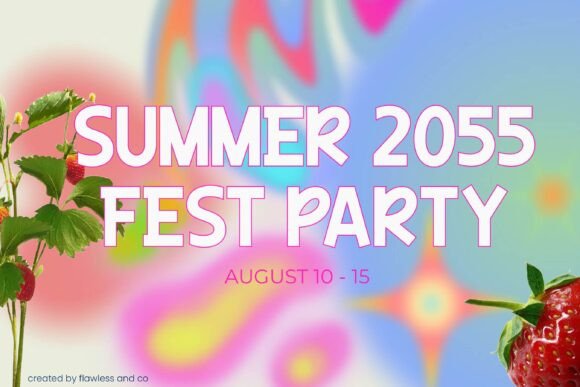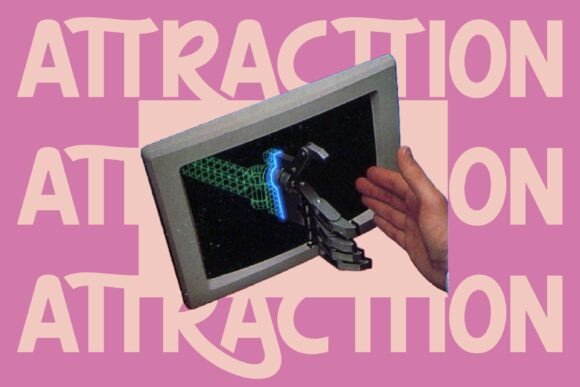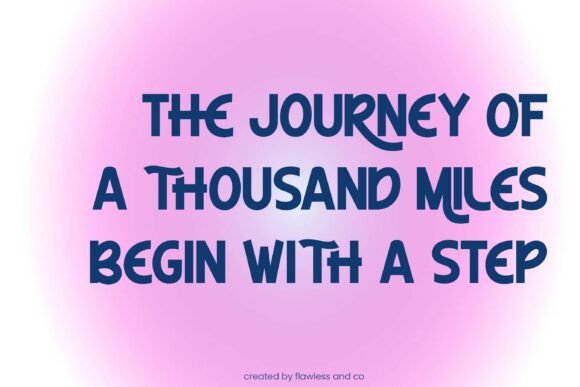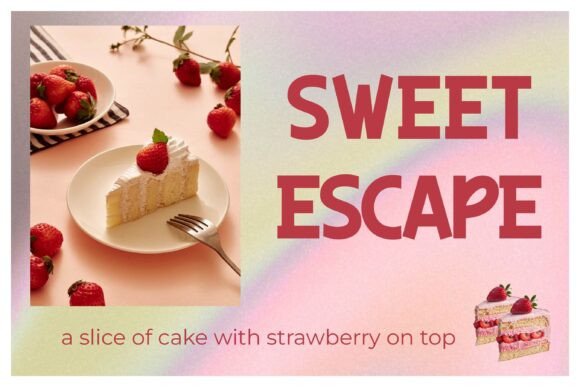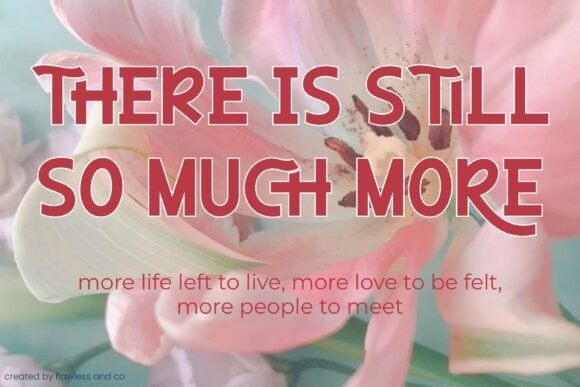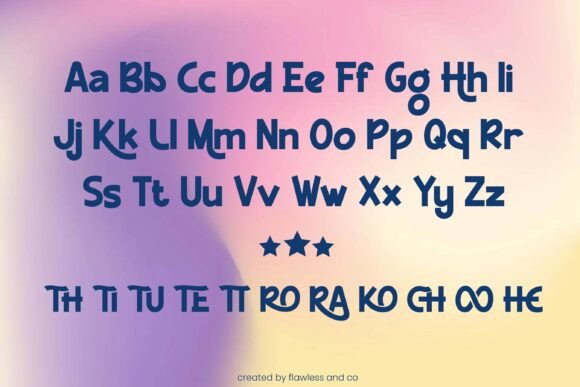
Introducing Blaperoom Font: The Ultimate Bold Sans Serif for Impactful Designs
In the world of typography, a font can make or break a design. When it comes to creating impactful headlines, branding, posters, logos, and digital content, you need a font that commands attention and exudes confidence. That’s where Blaperoom Font comes in – a powerful bold sans serif font designed to elevate your designs to the next level.
Clean Lines, Modern Geometry, and Unapologetic Boldness
Blaperoom Font boasts thick strokes, clean lines, and modern geometry, making it the perfect choice for designers and crafters looking to add a touch of boldness to their work. Its straightforward, no-nonsense style makes it incredibly versatile, delivering clarity and strength across various design applications. Whether you’re working on a logo, poster, or digital content, Blaperoom Font is the perfect companion to help you make a statement.
Perfect for Impactful Headlines and Branding
When it comes to creating headlines that grab attention, Blaperoom Font is the ultimate choice. Its bold and confident voice ensures that your message is heard loud and clear. The font’s clean lines and modern geometry also make it perfect for branding, adding a touch of sophistication and elegance to your logo or business identity.
Unleash Your Creativity with Blaperoom Font
One of the best things about Blaperoom Font is its versatility. You can use it in uppercase for maximum impact or mix and match with lowercase letters for added versatility. The font’s bold and confident voice ensures that your design stands out, regardless of how you choose to use it.
Why Choose Blaperoom Font?
- Bold and Confident Voice: Blaperoom Font is designed to command attention and exude confidence, making it perfect for impactful designs.
- Clean Lines and Modern Geometry: The font’s clean lines and modern geometry ensure that your design looks sleek and sophisticated.
- Incredibly Versatile: Blaperoom Font can be used in a variety of design applications, from logos and posters to digital content and branding.
- Easy to Read: Despite its boldness, Blaperoom Font is easy to read, making it perfect for body text and headlines.
Design Applications for Blaperoom Font
Blaperoom Font is perfect for a wide range of design applications, including:
- Logos and Branding: Add a touch of boldness and sophistication to your logo or business identity.
- Posters and Flyers: Create eye-catching posters and flyers that grab attention.
- Digital Content: Elevate your digital content, from social media posts to website headers.
- Headlines and Titles: Create bold and confident headlines and titles that make a statement.
Get Ready to Elevate Your Designs with Blaperoom Font
If you’re looking for a font that can help you create impactful designs, look no further than Blaperoom Font. With its bold and confident voice, clean lines, and modern geometry, Blaperoom Font is the perfect choice for designers and crafters who want to make a statement. So why wait? Download Blaperoom Font today and start elevating your designs to the next level.
In conclusion, Blaperoom Font is a powerful bold sans serif font that is perfect for impactful designs. Its versatility, clean lines, and modern geometry make it the perfect choice for a wide range of design applications. Whether you’re a designer, crafter, or simply someone who wants to add a touch of boldness to their work, Blaperoom Font is the ultimate choice.